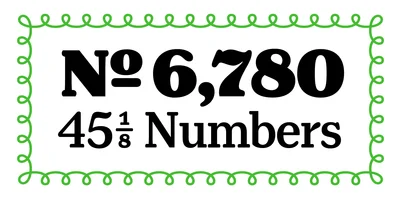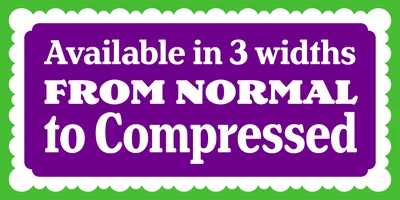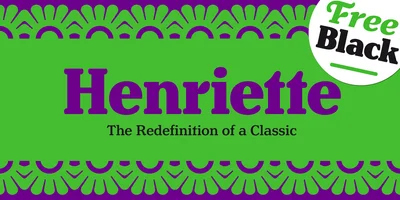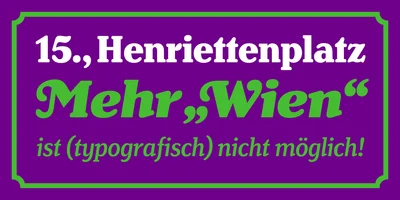
Cardinal vs Henriette Compressed
Cardinal and Henriette Compressed are both serif typefaces sharing a editorial foundation. Where Cardinal leans modern, elegant, Henriette Compressed brings slab serif, condensed. Compare which suits your Editorial project.
| Feature | Cardinal | Henriette Compressed |
| Source | Production Type | Sudtipos |
Recommended: Cardinal
- modern, elegant design character
- Suited for Luxury
- From production-type
Consider: Henriette Compressed
- slab serif, condensed design character
- Suited for Packaging
- From sudtipos